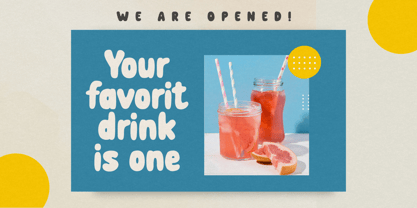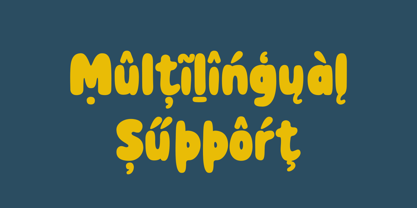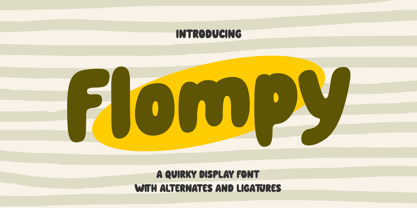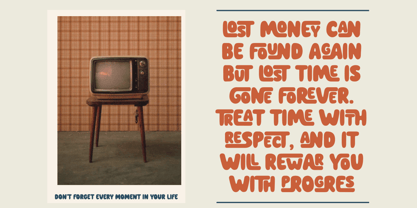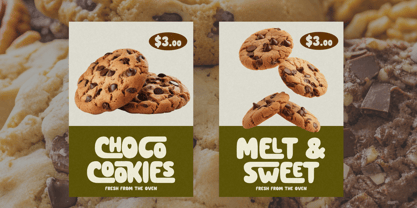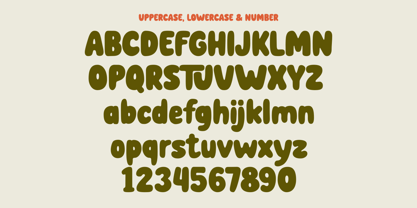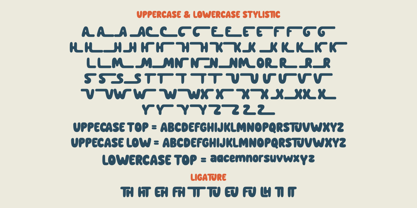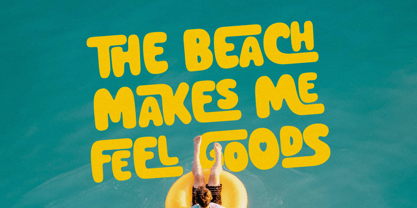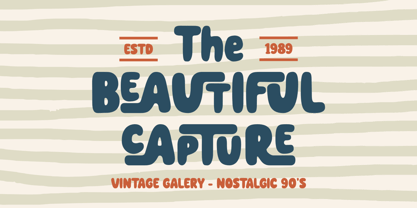
Flompy
by Zeenesia Studio
The Flompy Font Family was designed by Doni Purwoko and published by Zeenesia Studio. Flompy contains 1 styles. More about this family
Flompy is a quirky display font full of charm and personality. With its soft, rounded shapes and bold presence, Flompy brings a fun, friendly, and eye-catching look to any design. Designed with alternates and ligatures, this typeface gives you creative flexibility to create more dynamic and expressive typography. It’s perfect for branding, posters, packaging, children’s designs, social media graphics, and any project that needs a playful yet confident statement.